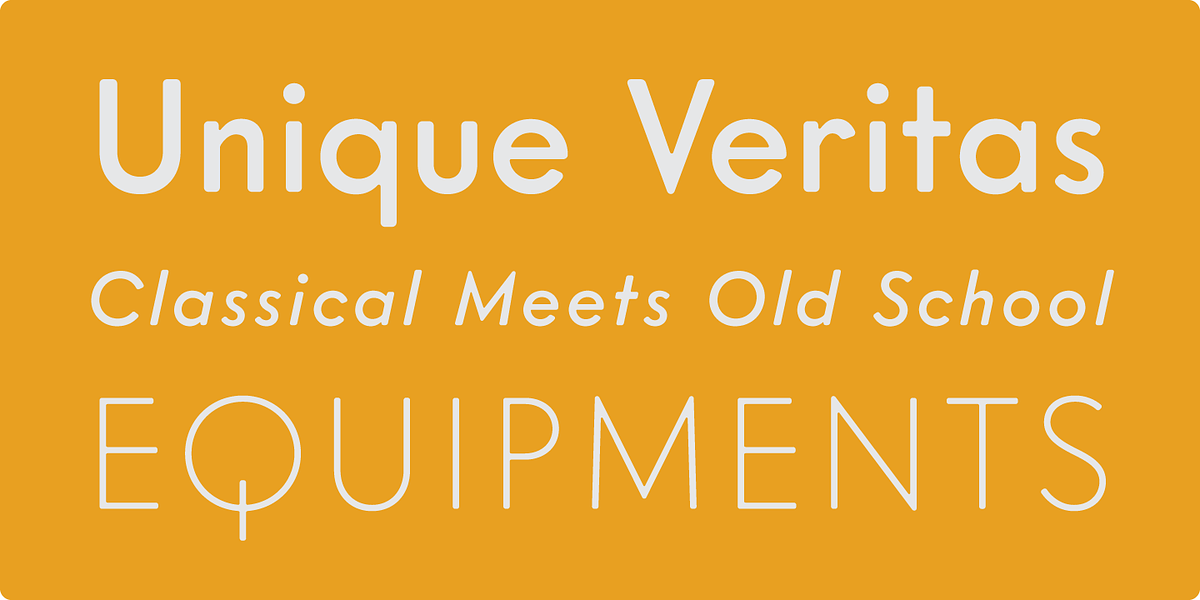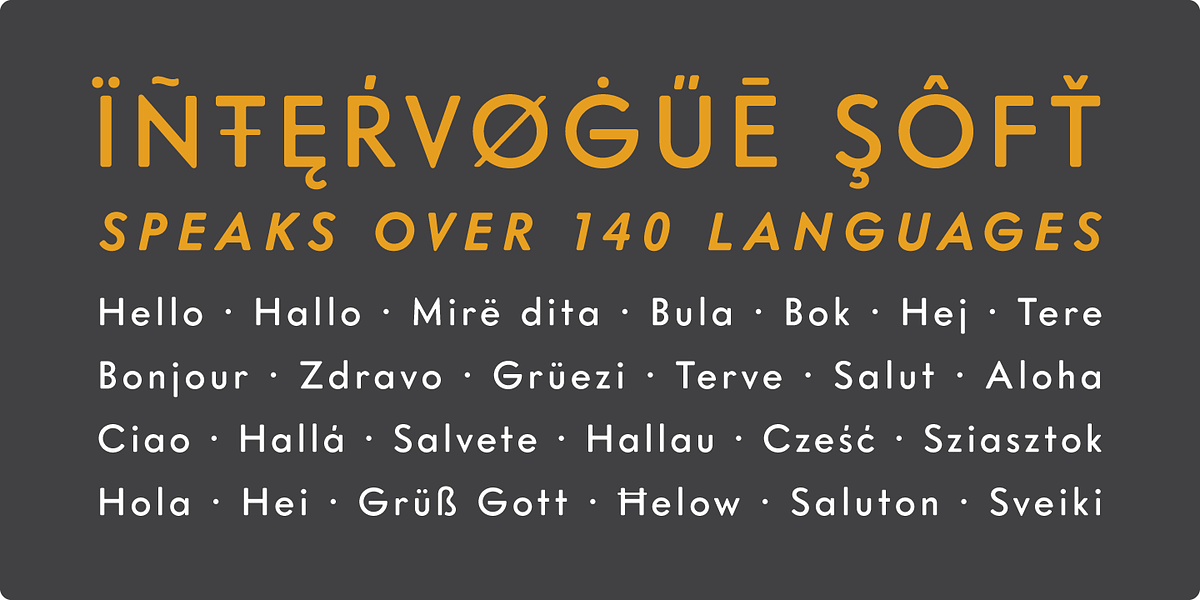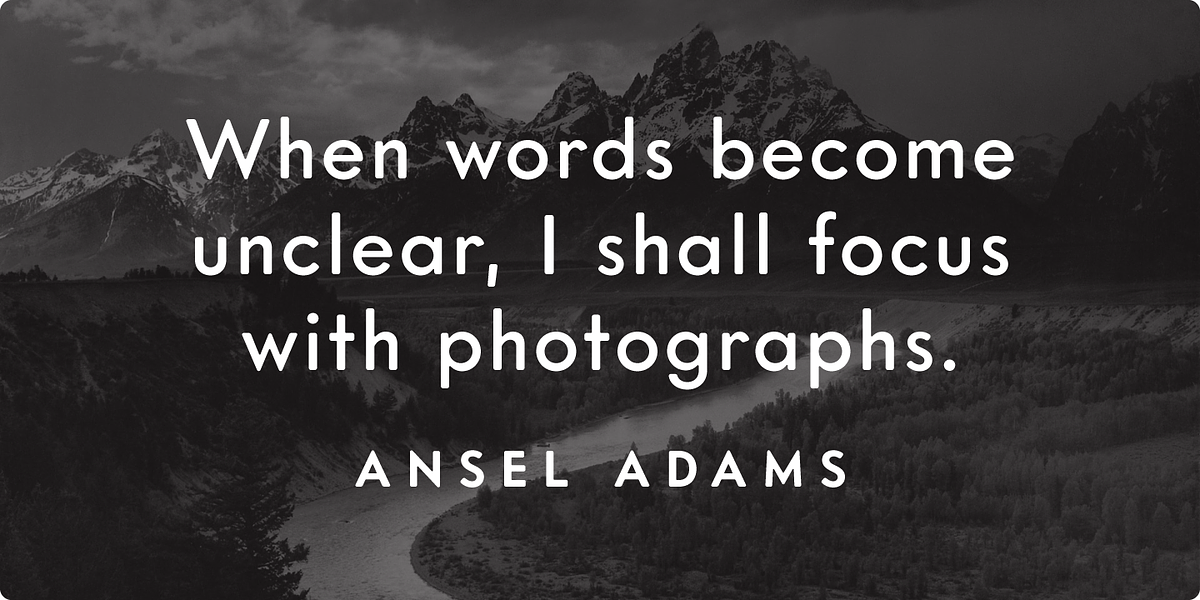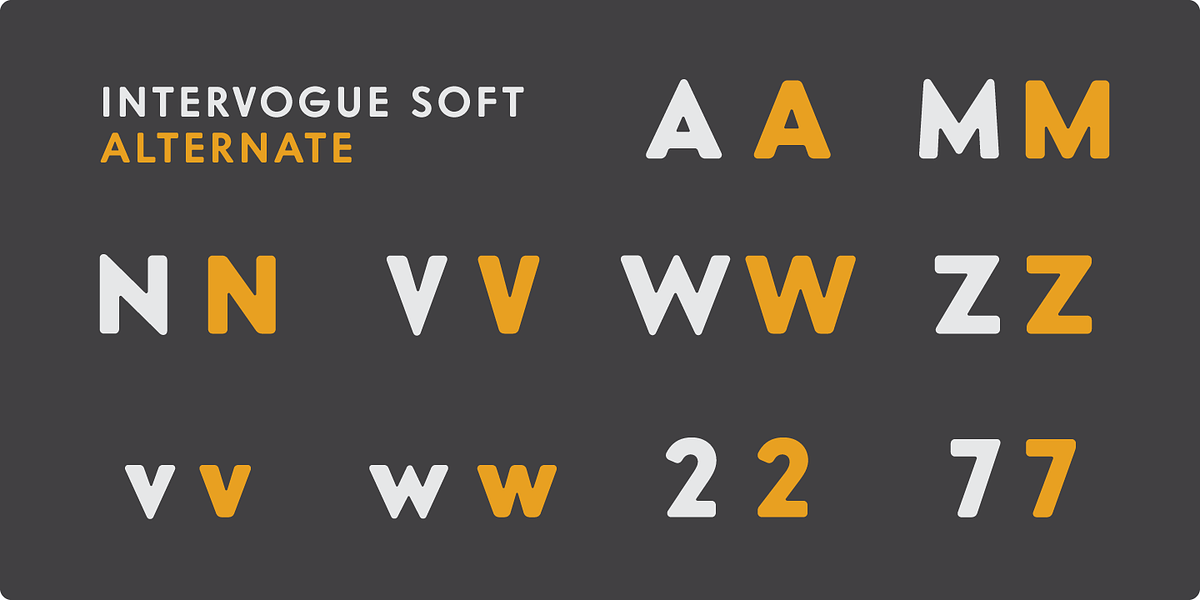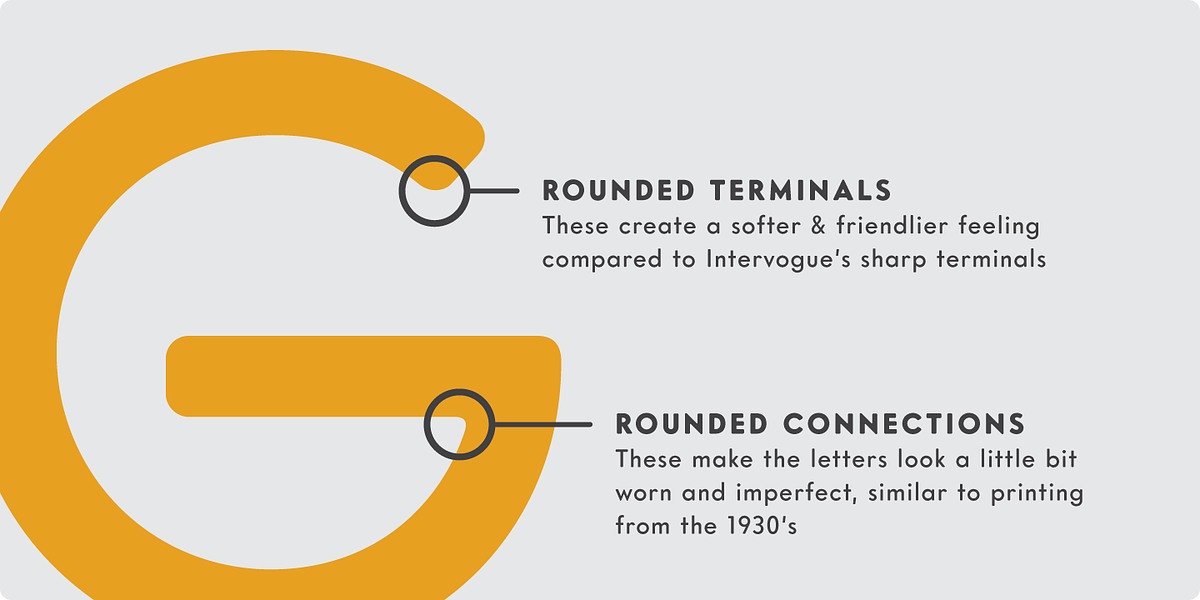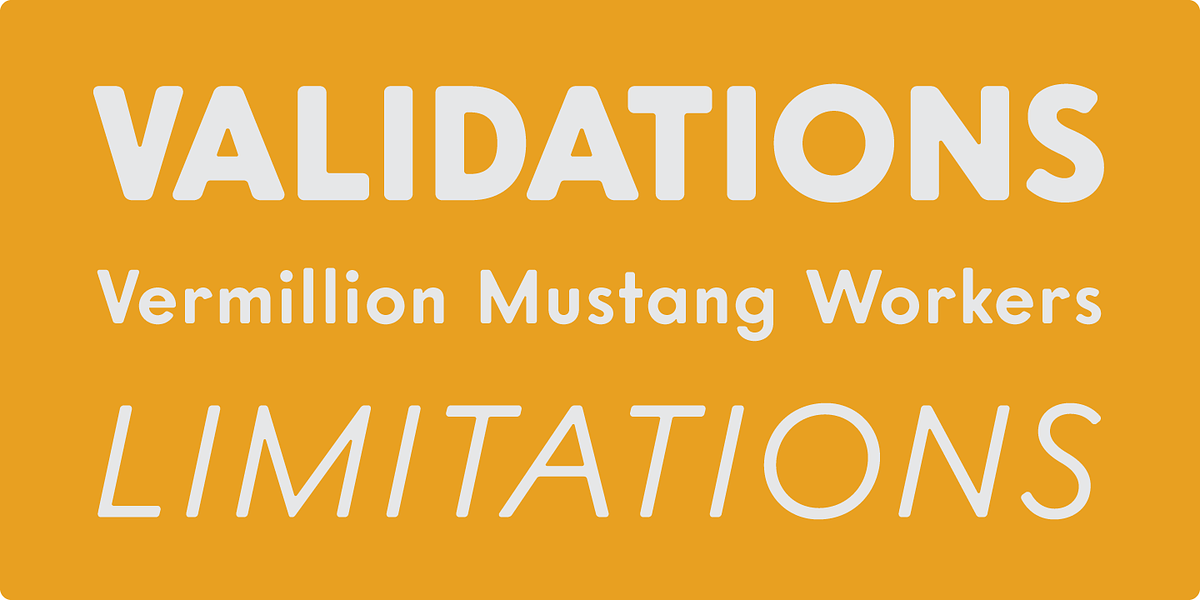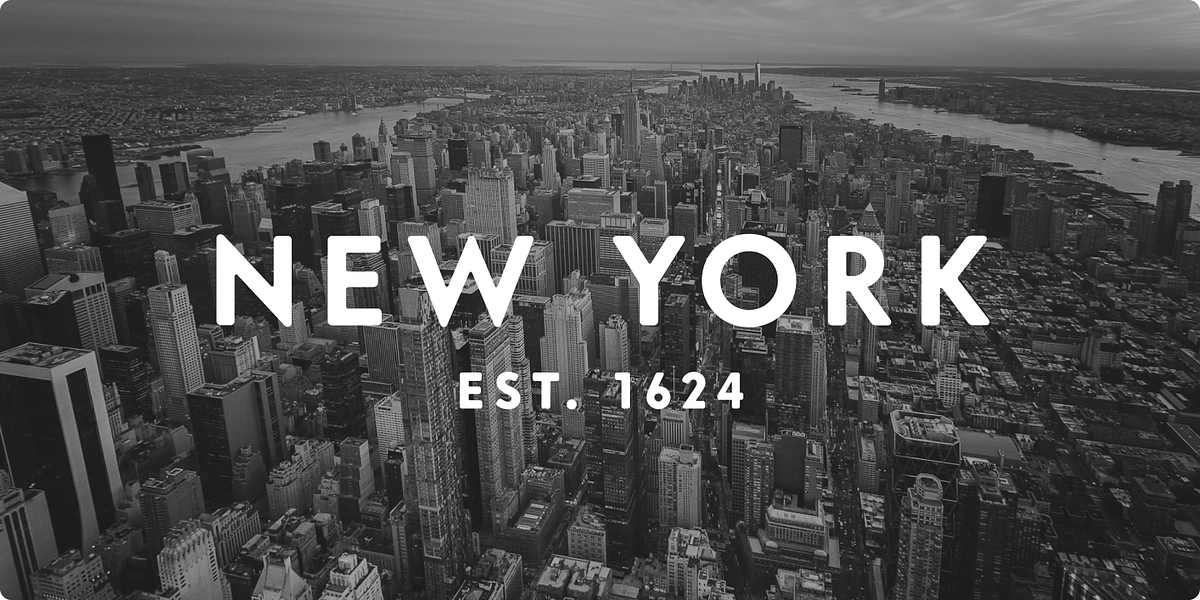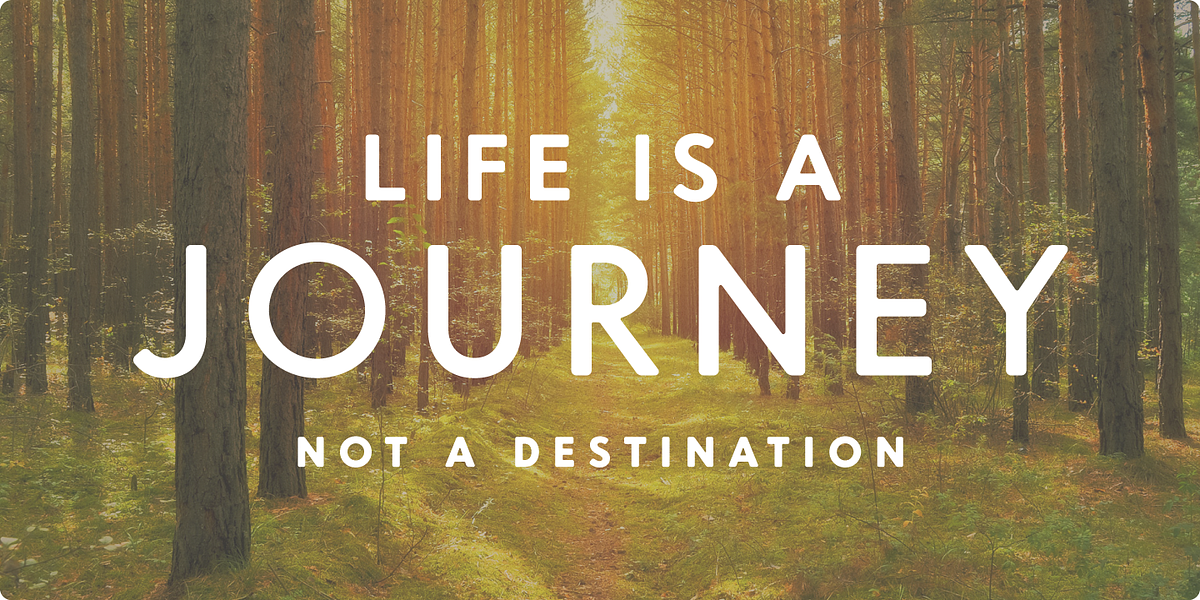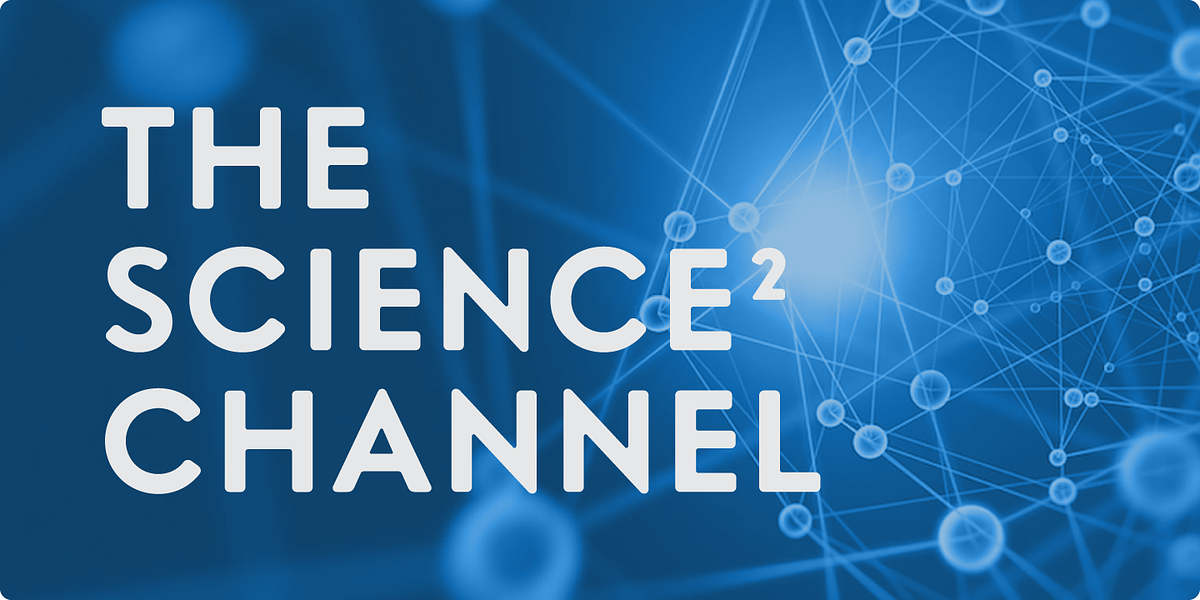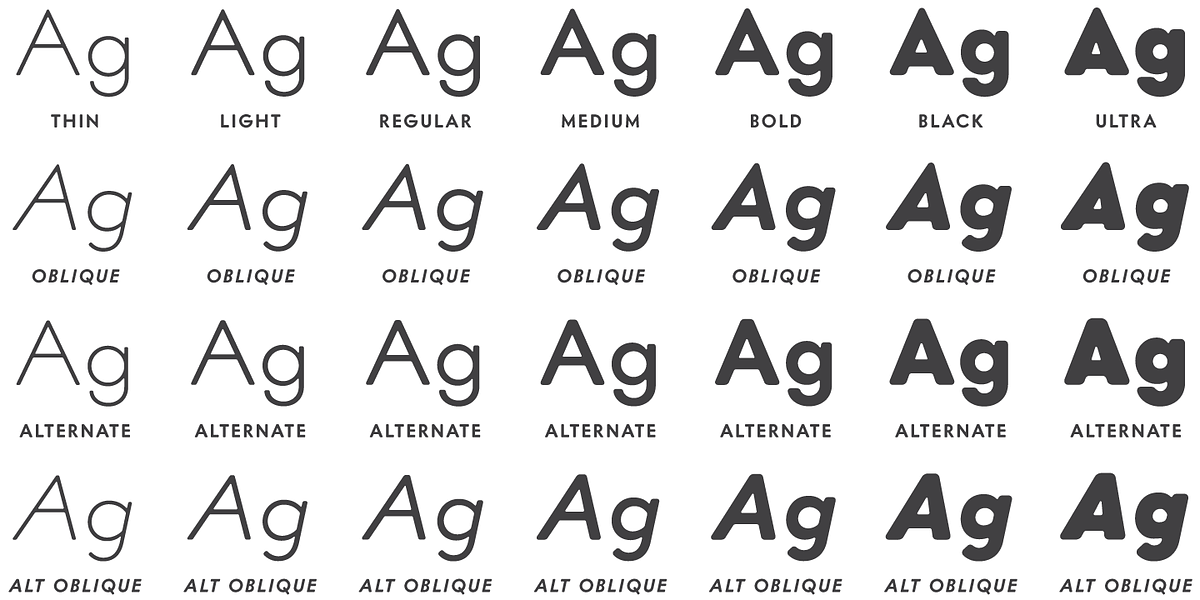
Intervogue Soft
Intervogue Soft is a revival of the geometric sans serif typeface Vogue, originally released by Intertype in the 1930s. It features seven weights with true obliques and an alternate cut, making it versatile for various applications. The font retains the unique quirks of its predecessor, like the distinctive G and Q with a vertical tail, while offering a softer, more contemporary feel.